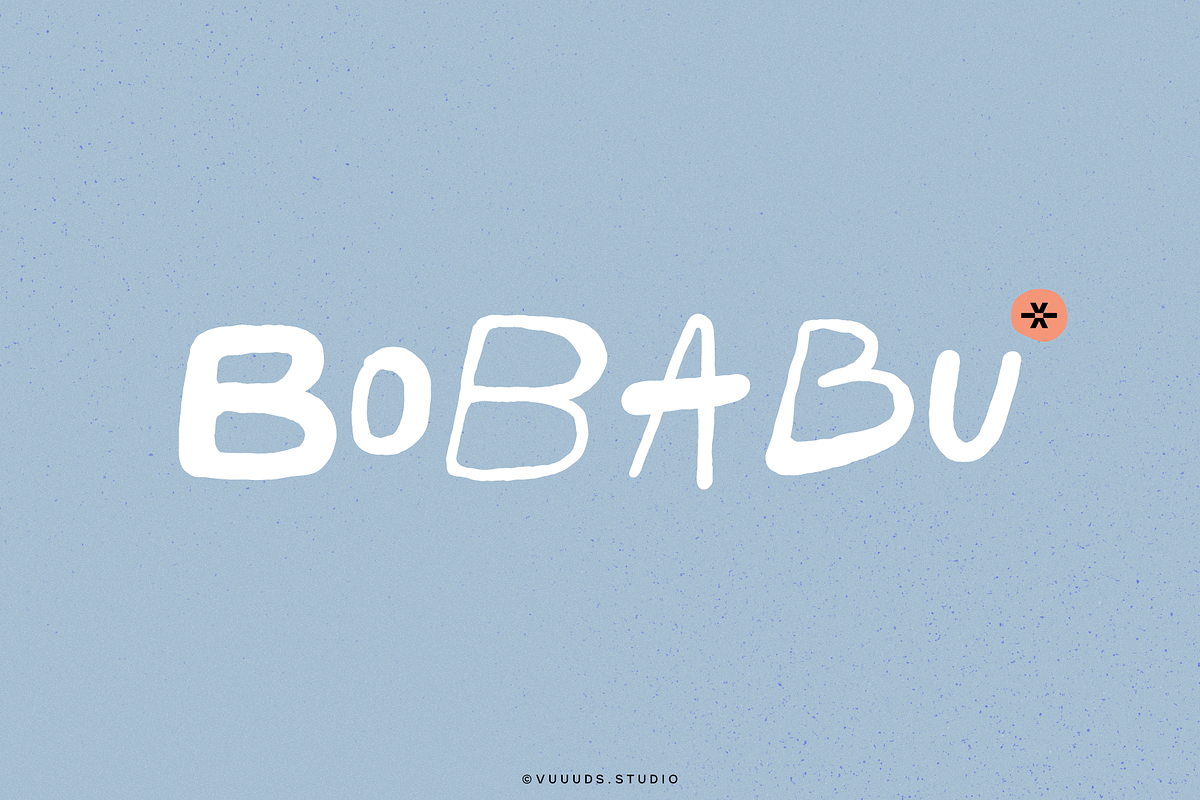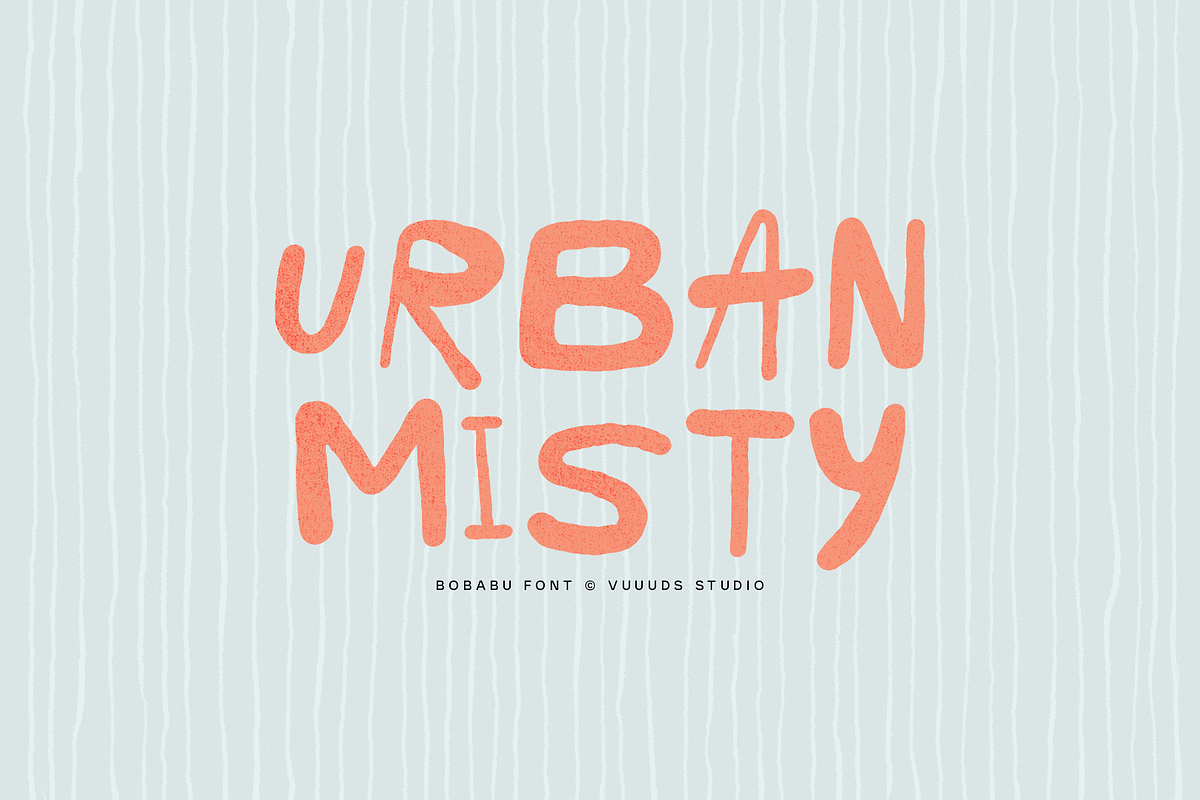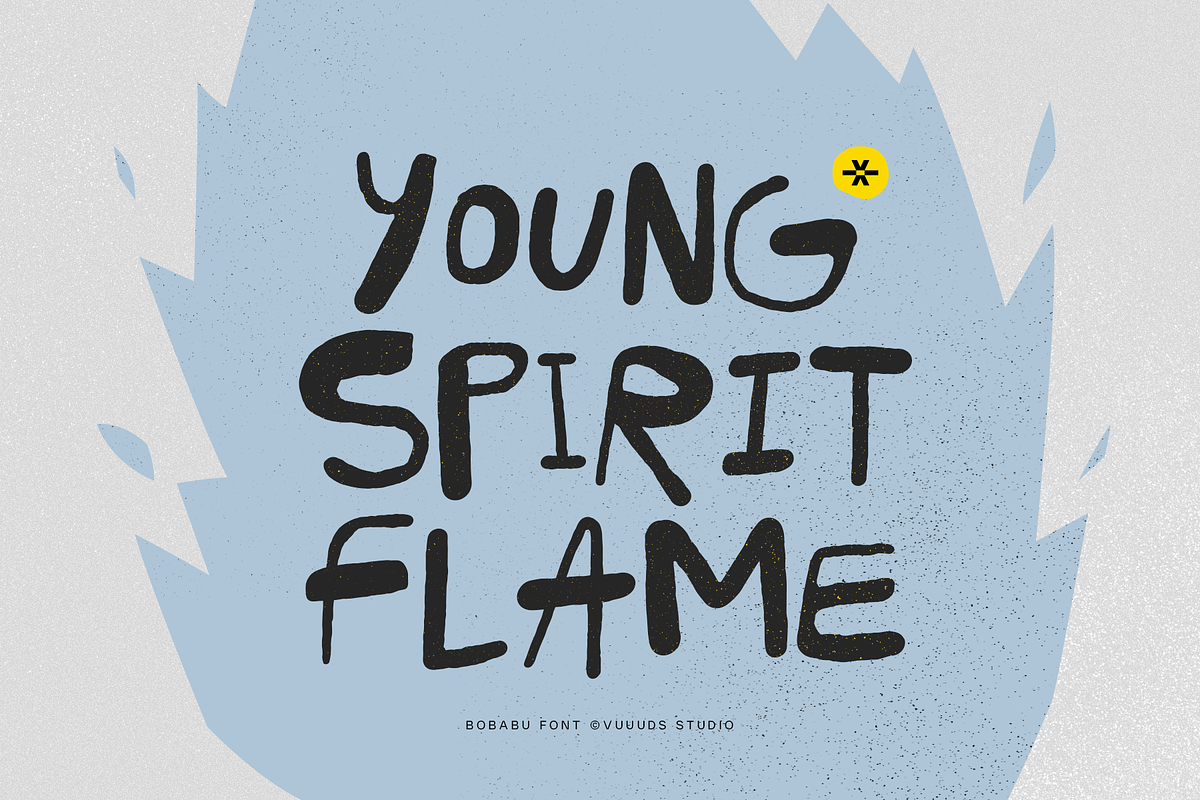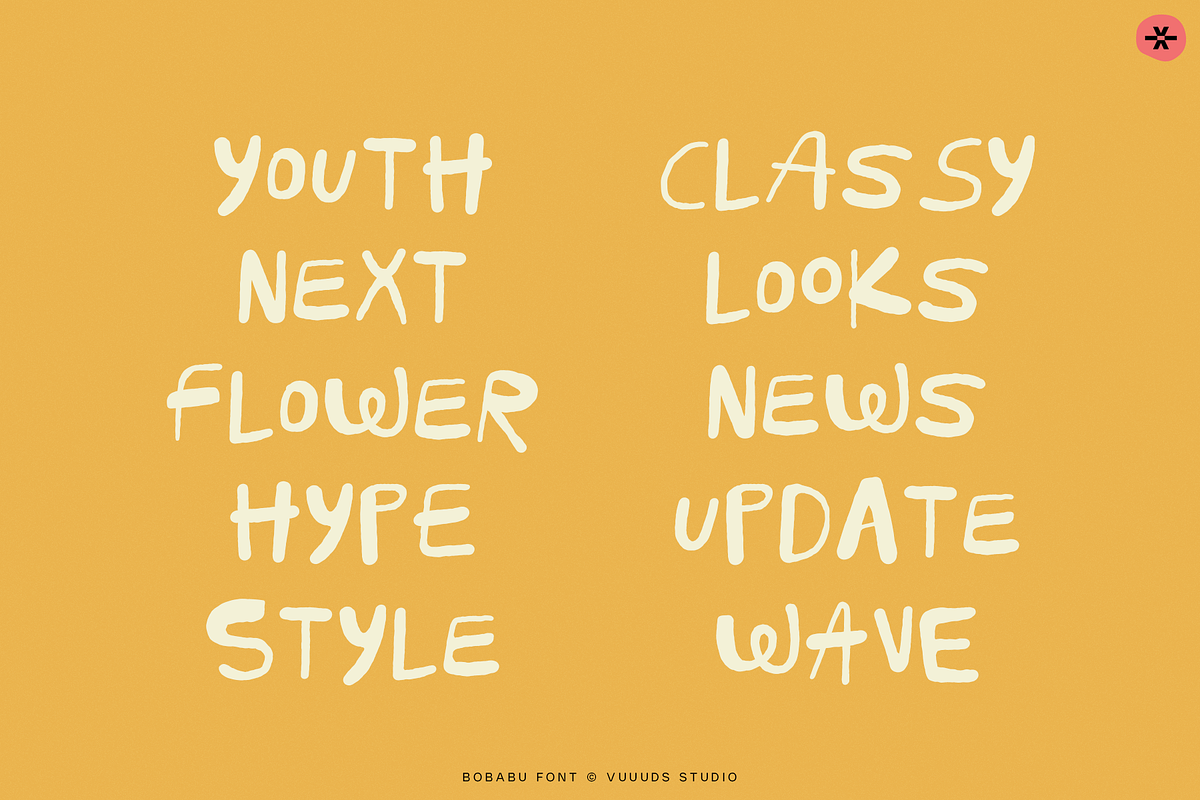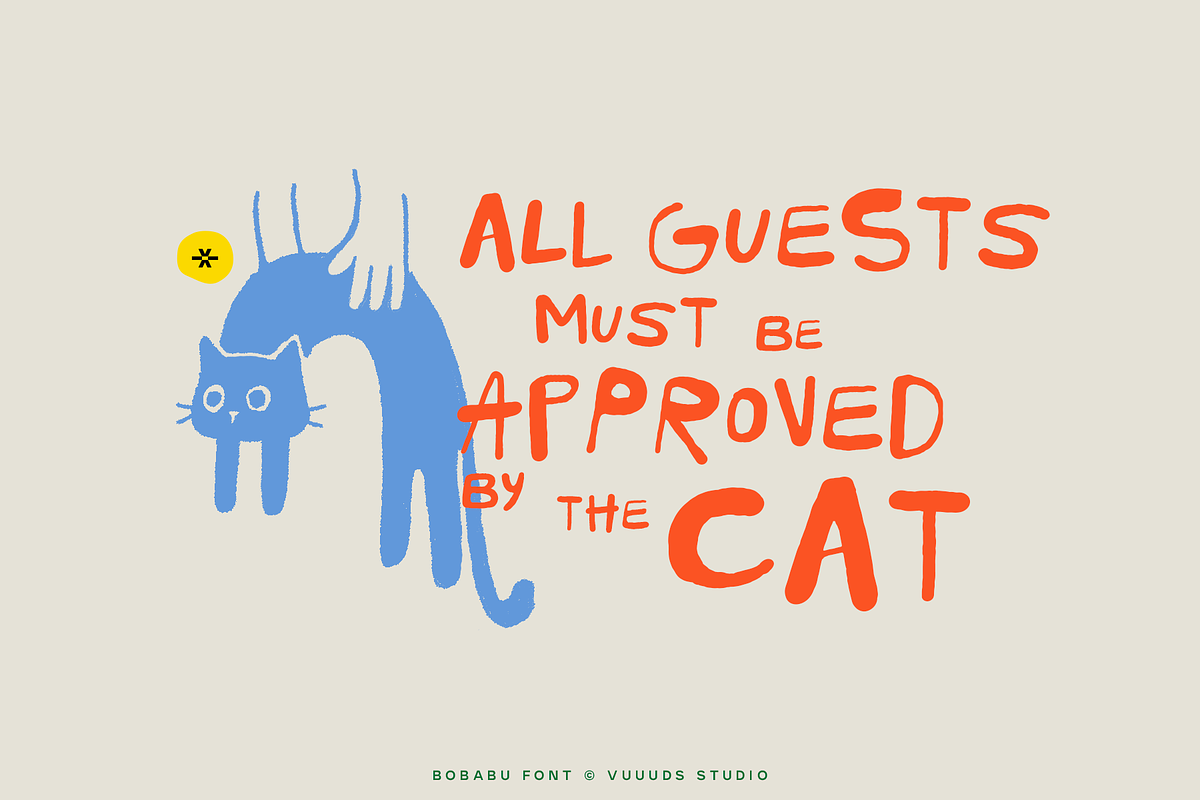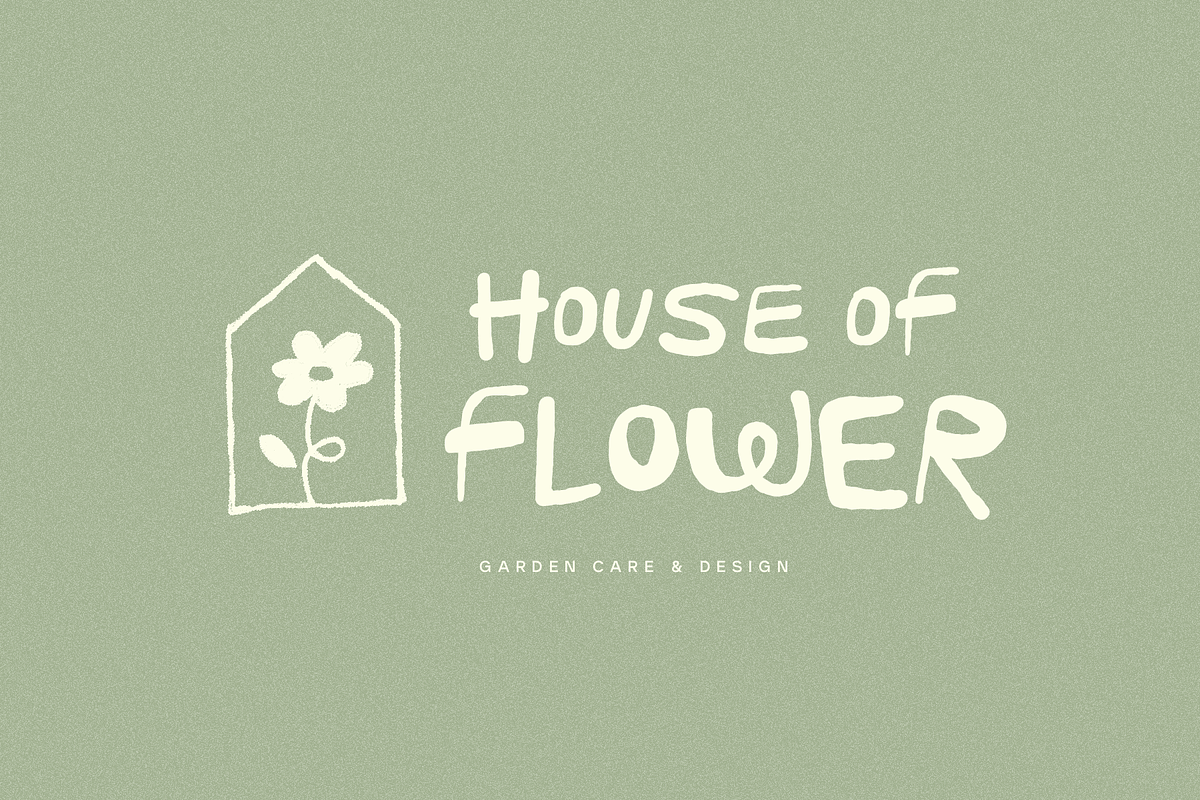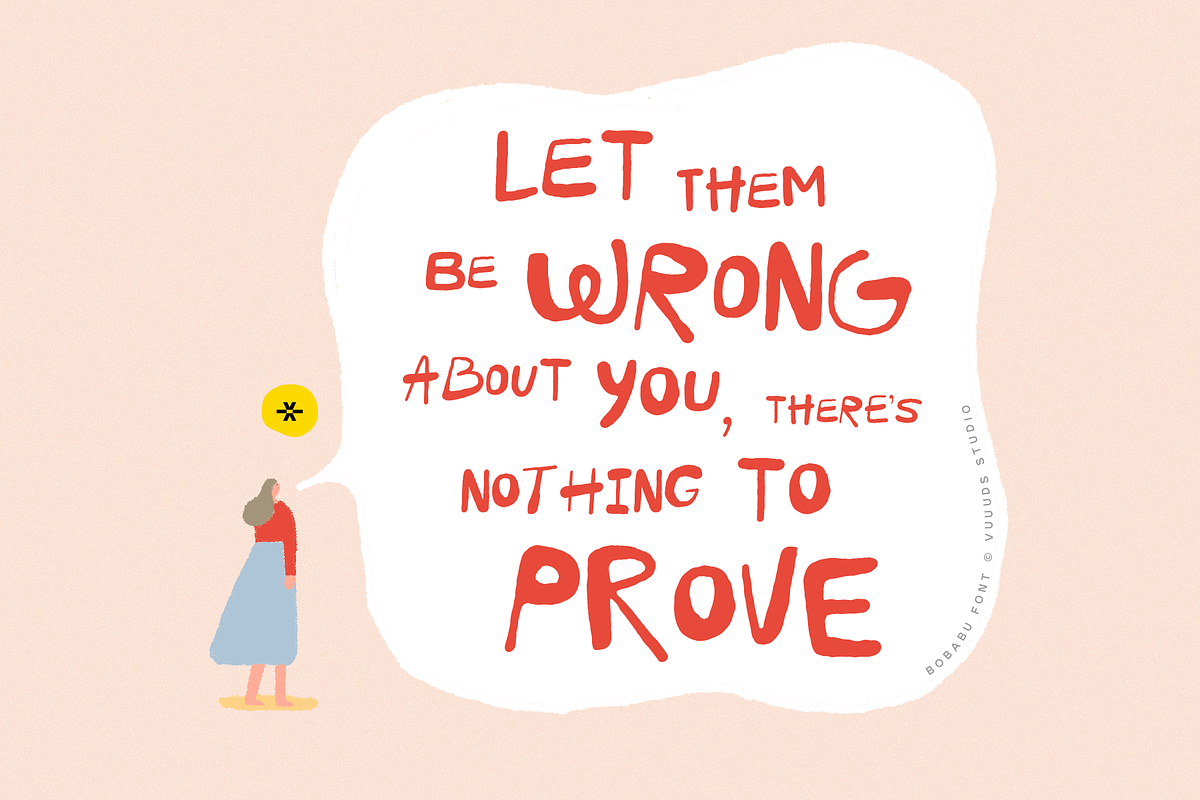
Bobabu
Meet Bobabu, a playful rounded font designed to bring instant energy and character to your creative projects. Its defining feature lies in the unexpected contrast of thick and thin strokes, creating a dynamic rhythm that catches the eye immediately. Whether you are designing bold sports posters, trendy café menus, or vibrant brand identities, Bobabu delivers a fresh and unforgettable visual punch. Elevate your artwork today and let your headlines speak with unapologetic style!